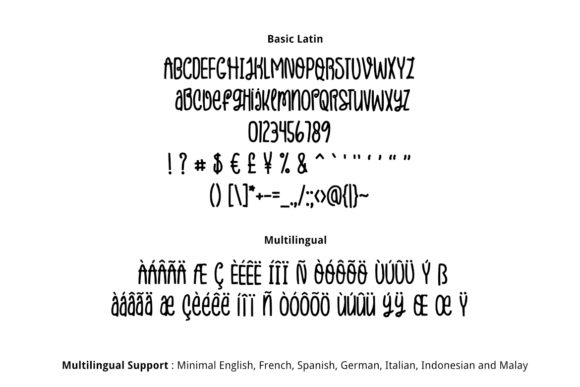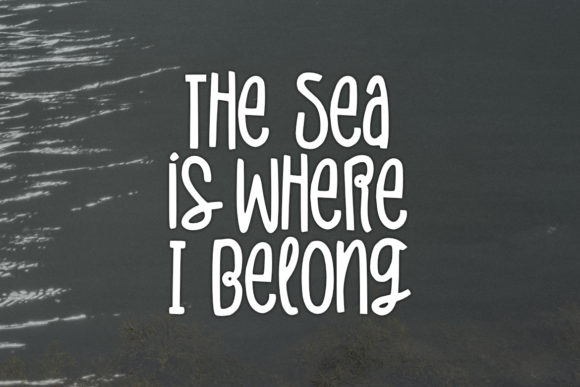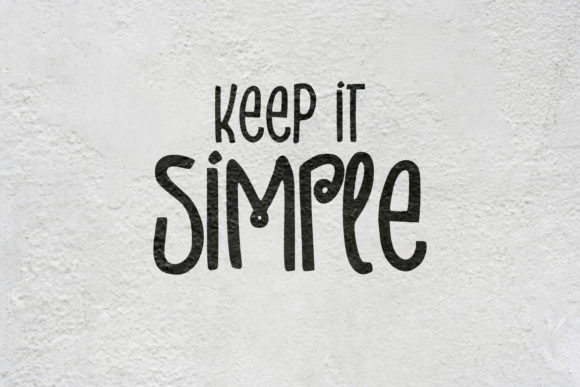
Introduction to Kajak Font
Kajak is a cute yet thick lettered display font.
Lovely and childish, this font will look absolutely gorgeous on a variety of school projects or informal design ideas .
Key Features of Kajak Font